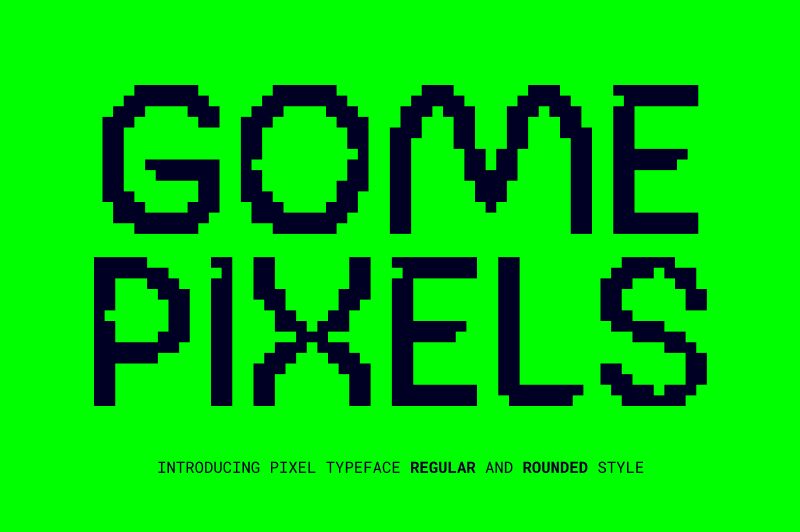
Gome Pixel font by Fitrah Type brings a nostalgic digital aesthetic, reminiscent of retro video games. As a display font, it emphasizes pixelated characters that offer both clarity and charm, making it ideal for eye-catching headings and logos.
The unique digital style captures the essence of classic arcade graphics, providing a playful yet professional touch to your design projects. Whether you're designing game interfaces, event posters, or tech-themed websites, Gome Pixel adds an authentic retro flair.